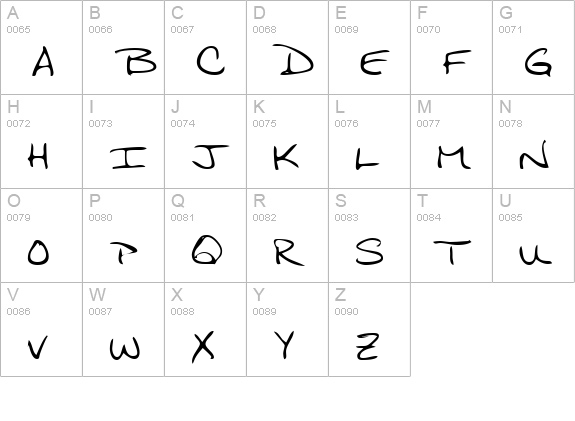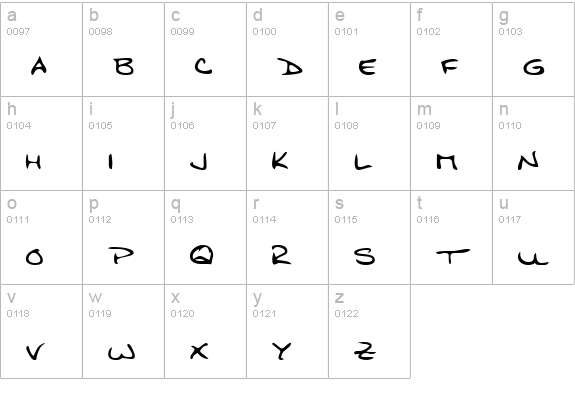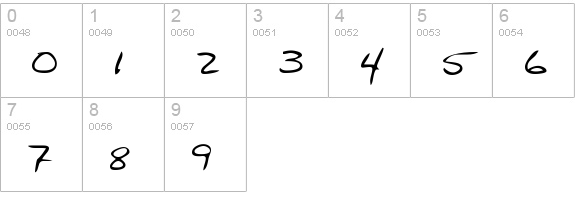
WangleysHand Regular Font Details
WangleysHand Regular is the standard, neutral variant in the WangleysHand typeface family \xE2\x80\x94 well suited to general body text, paragraphs, and standard typographic work.
WangleysHand Regular font is a charming and versatile typeface that adds a touch of creativity and personality to any project. With its unique hand-drawn style, this font captures the essence of handmade craftsmanship, making it perfect for a wide range of design purposes. Whether you're designing a logo, creating a poster, or adding a personalized touch to your social media graphics, WangleysHand Regular font is sure to make a lasting impression. Its flowing lines and playful curves give your text a warm and friendly feel, instantly captivating your audience's attention. One of the best things about WangleysHand Regular font is that it is freely available to download at FontsMarket.com. This means that you can start using this incredible font in your projects without any restrictions or limitations. Whether you're a professional designer or a hobbyist, you can easily access and utilize this font to bring your creative ideas to life. With its wide range of characters and glyphs, WangleysHand Regular font offers endless possibilities for customization and personalization. It includes both uppercase and lowercase letters, as well as numerals and punctuation marks, allowing you to create visually stunning designs with ease. So, if you're looking for a font that combines elegance, creativity, and a touch of whimsy, look no further than WangleysHand Regular font. Download it for free at FontsMarket.com and let your imagination run wild as you explore the endless possibilities that this font has to offer.